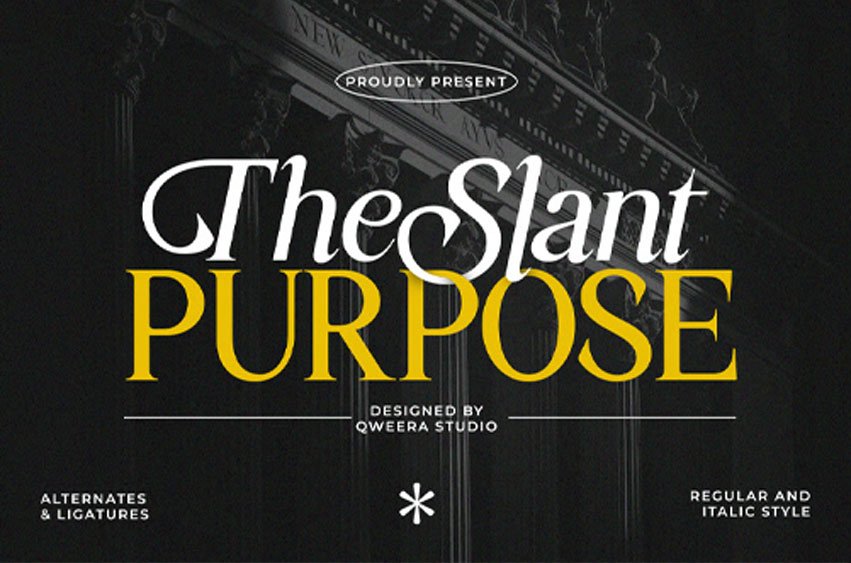
The Slant Purpose Font is an elegant modern serif typeface designed to deliver timeless sophistication with a contemporary editorial touch. Featuring refined curves, premium alternates, and beautifully crafted ligatures, it creates striking typography for luxury branding and creative design.
Perfect for fashion campaigns, luxury logos, editorial layouts, boutique branding, premium packaging, magazines, and upscale marketing materials.
The Slant Purpose combines classic serif elegance with modern refinement, making it an excellent choice for designers seeking bold, luxurious typography.
Features
- Uppercase & lowercase
- Alternates & ligatures
- Multilingual support
- Professional kerning
- Regular & Italic
Perfect For
Luxury branding, editorial design, fashion campaigns, boutique logos, premium packaging, magazine layouts